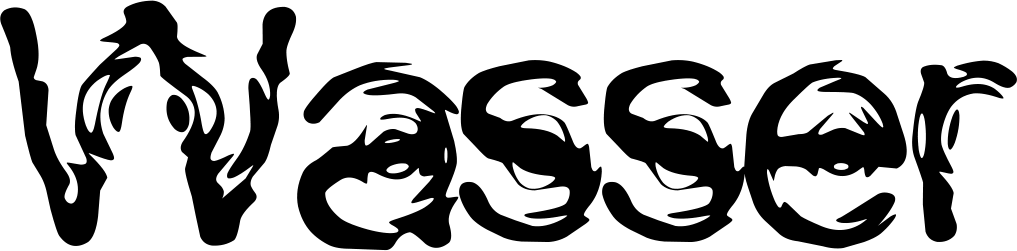
Wasser Font
Designed byAnke-Art
If you like to watch one of the water fonts and use it in your design, we suggest the Wasser font. Each of the characters looks like drops scattered on the water’s surface.
This summer wave font is used to design summer class flyers, swimwear, and summer campaigns. In addition, you can use this font to decorate birthday greeting cards, mobile applications, video games, and even educational videos and save time.